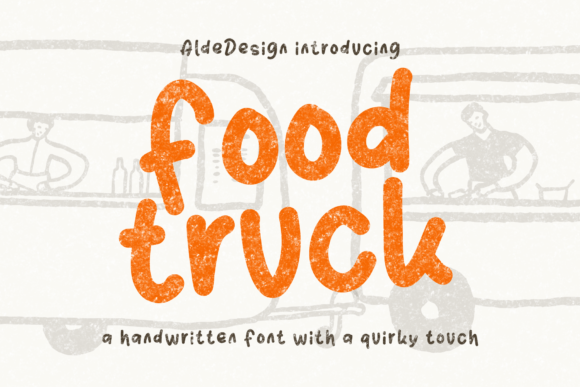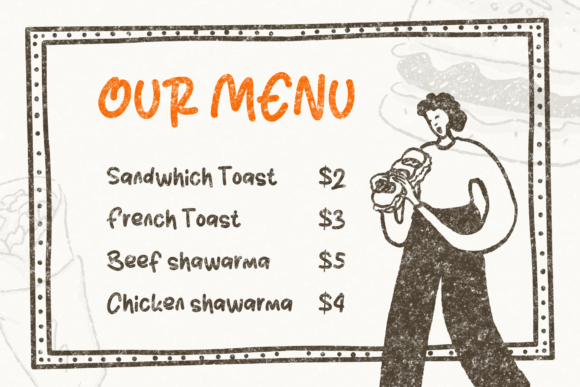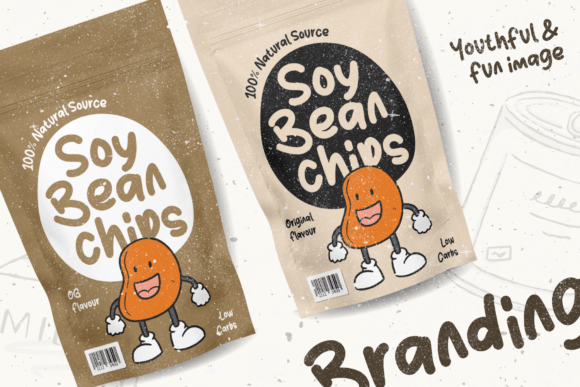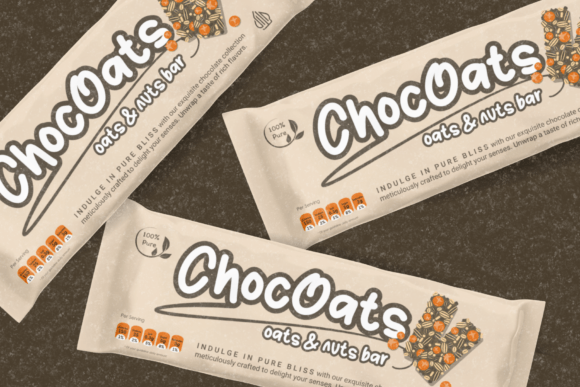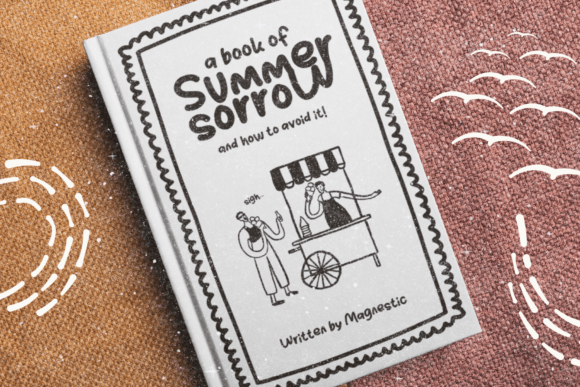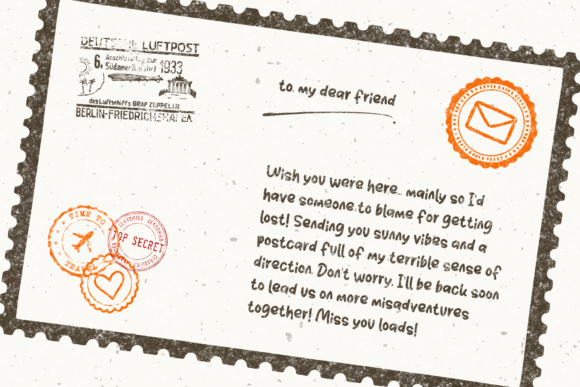
Introducing Food Truck Font: The Perfect Blend of Quirkiness and Warmth
Are you a designer, crafty entrepreneur, or a small business owner looking for a unique font to elevate your brand’s visual identity? Look no further than Food Truck Font, a handcrafted typographic wonder that embodies the perfect blend of quirkiness and warmth. This enchantingly casual font is designed to spark creativity and leave a lasting impression on your audience.
The Charm of Food Truck Font
Food Truck Font is more than just a font – it’s an experience. Its captivating characters are carefully crafted to infuse your brand with joyful vibes, making it perfect for businesses that want to stand out from the crowd. Whether you’re creating branding materials, Etsy listings, or print-on-demand products, Food Truck Font is the ideal choice to add a touch of whimsy and personality to your designs.
What Makes Food Truck Font Special?
- Handcrafted with love: Each character in Food Truck Font is meticulously designed to ensure a unique and authentic look that sets it apart from generic fonts.
- Quirky and warm: The font’s quirky gestures and warm undertones create a delightful charm that’s sure to capture the hearts of your audience.
- Perfect for creative ventures: Food Truck Font is designed to spark creativity and inspire imagination, making it an excellent choice for designers, crafters, and entrepreneurs.
- Etsy and print-on-demand friendly: The font’s casual and immersive style makes it an ideal fit for Etsy listings, print-on-demand products, and other creative projects.
How to Use Food Truck Font in Your Designs
Food Truck Font is incredibly versatile and can be used in a variety of design projects, including:
- Branding materials: Use Food Truck Font to create eye-catching logos, business cards, and letterheads that reflect your brand’s personality.
- Etsy listings: Add a touch of whimsy to your Etsy listings with Food Truck Font, making your products stand out from the competition.
- Print-on-demand products: Use Food Truck Font to create unique and eye-catching designs for print-on-demand products, such as t-shirts, mugs, and tote bags.
- Social media graphics: Create engaging social media graphics with Food Truck Font to capture the attention of your audience and build your brand’s visual identity.
Tips for Getting the Most Out of Food Truck Font
To get the most out of Food Truck Font, here are some tips to keep in mind:
- Experiment with colors: Food Truck Font looks great in a variety of colors, so don’t be afraid to experiment and find the perfect hue to match your brand’s personality.
- Mix and match: Combine Food Truck Font with other fonts to create a unique and visually appealing design.
- Play with textures: Add texture to your designs with Food Truck Font to give them a more organic and handmade feel.
Food Truck Font is a unique and captivating typographic wonder that’s perfect for designers, crafters, and entrepreneurs looking to add a touch of quirkiness and warmth to their designs. With its handcrafted characters, quirky gestures, and warm undertones, Food Truck Font is sure to spark creativity and leave a lasting impression on your audience. So why wait? Download Food Truck Font today and experience the delightful charm it has to offer!